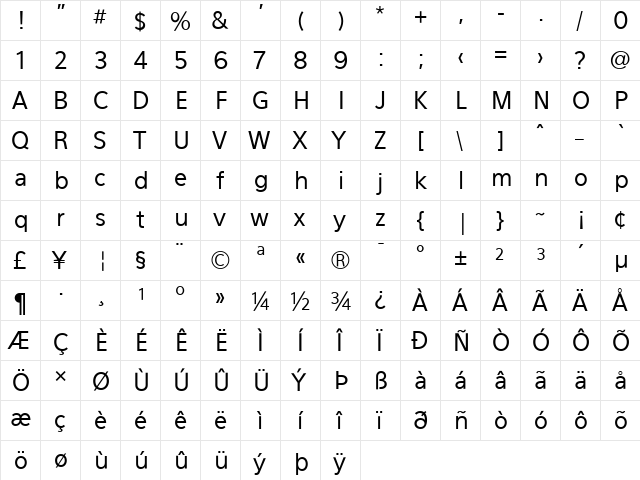
Eau Sans Book
| Foundry | YOFonts |
| Designer | Yamaoka Yasuhiro |
Design Context for Eau Typeface
Eau offers clean, dependable letterforms without strong stylistic allegiance, making it a practical choice for designers who need flexibility.